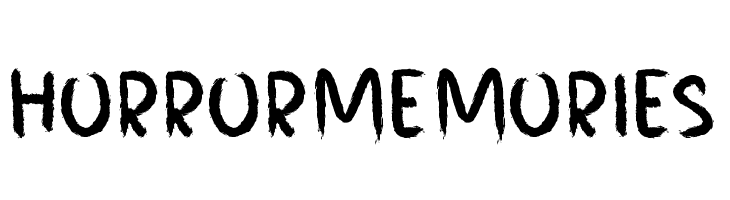
A bold, brushstroke-style font with an artistic and dynamic appearance.
A bold, brushstroke-style font with an expressive and dynamic appearance.
A dramatic, edgy font with a rough, hand-drawn appearance.